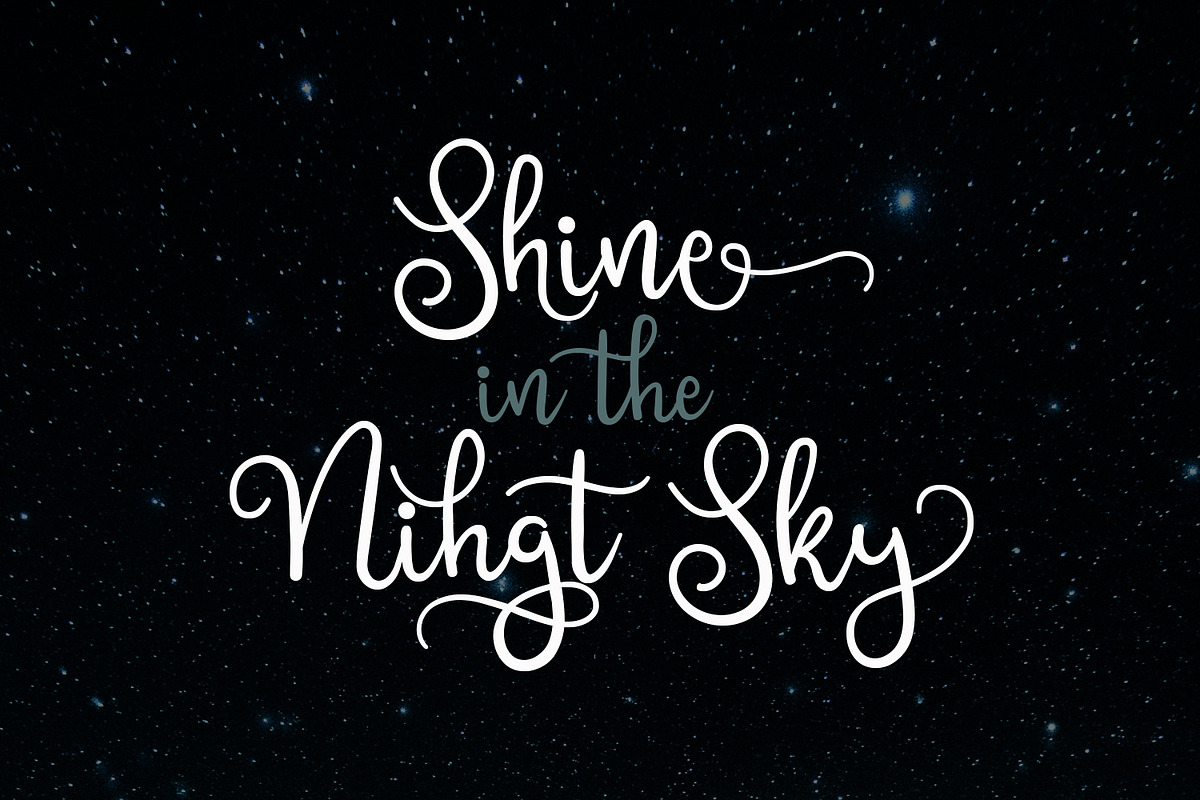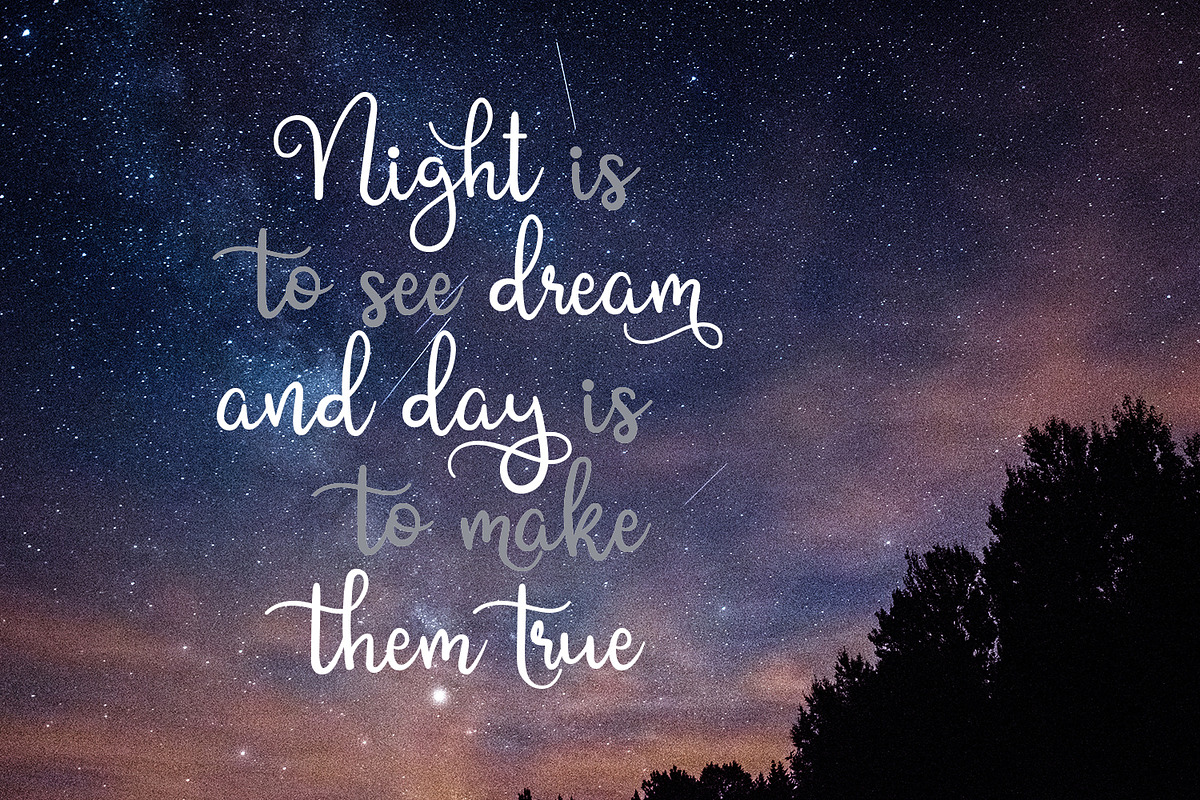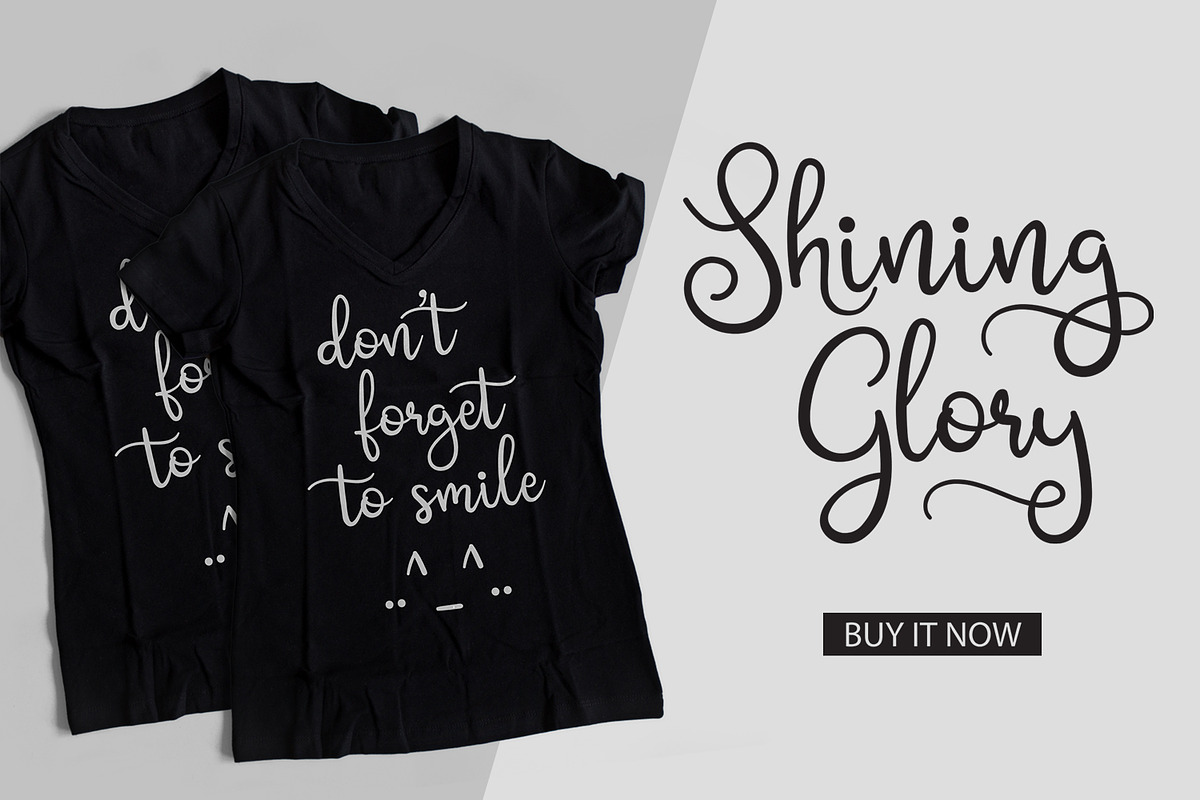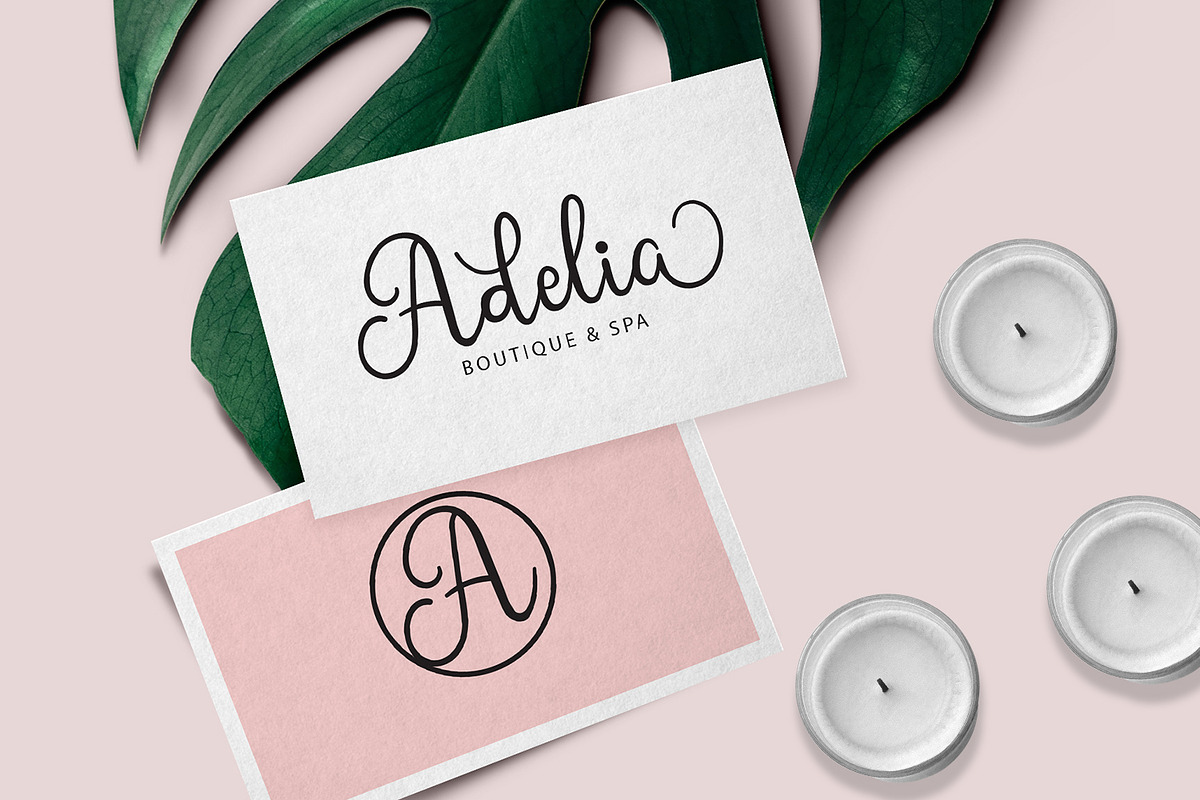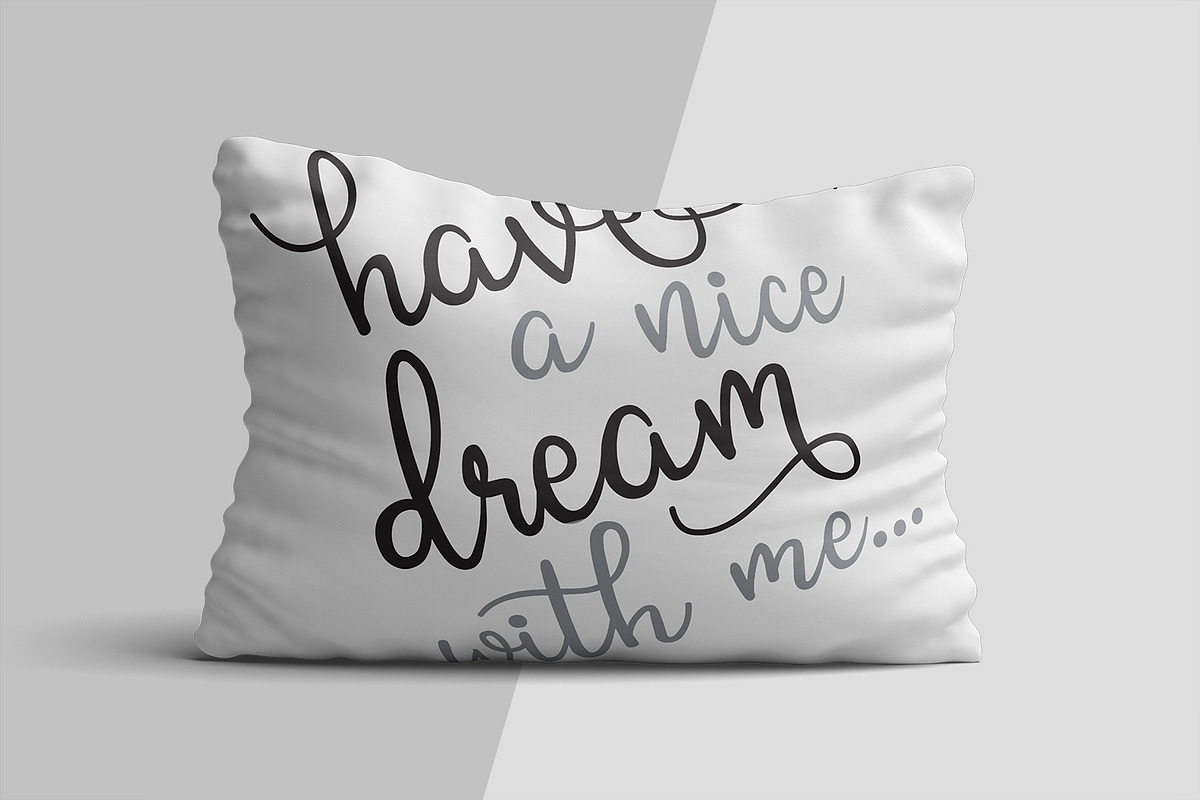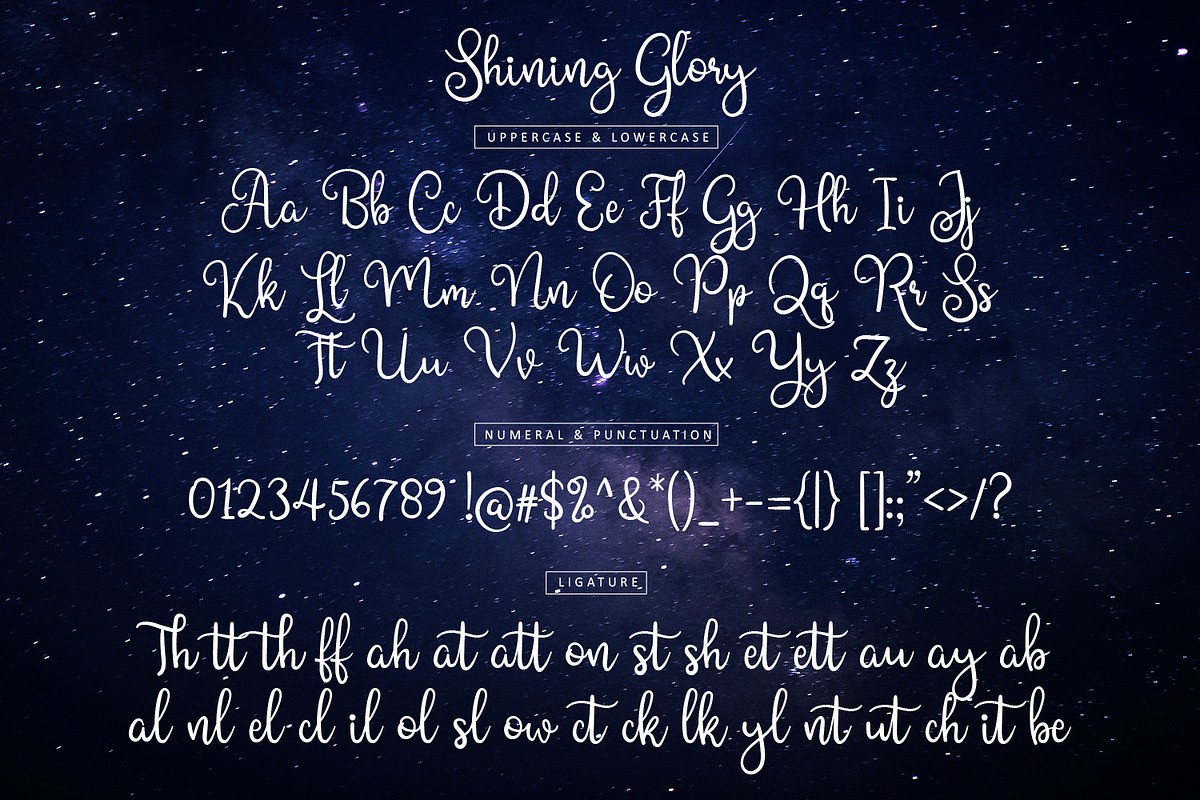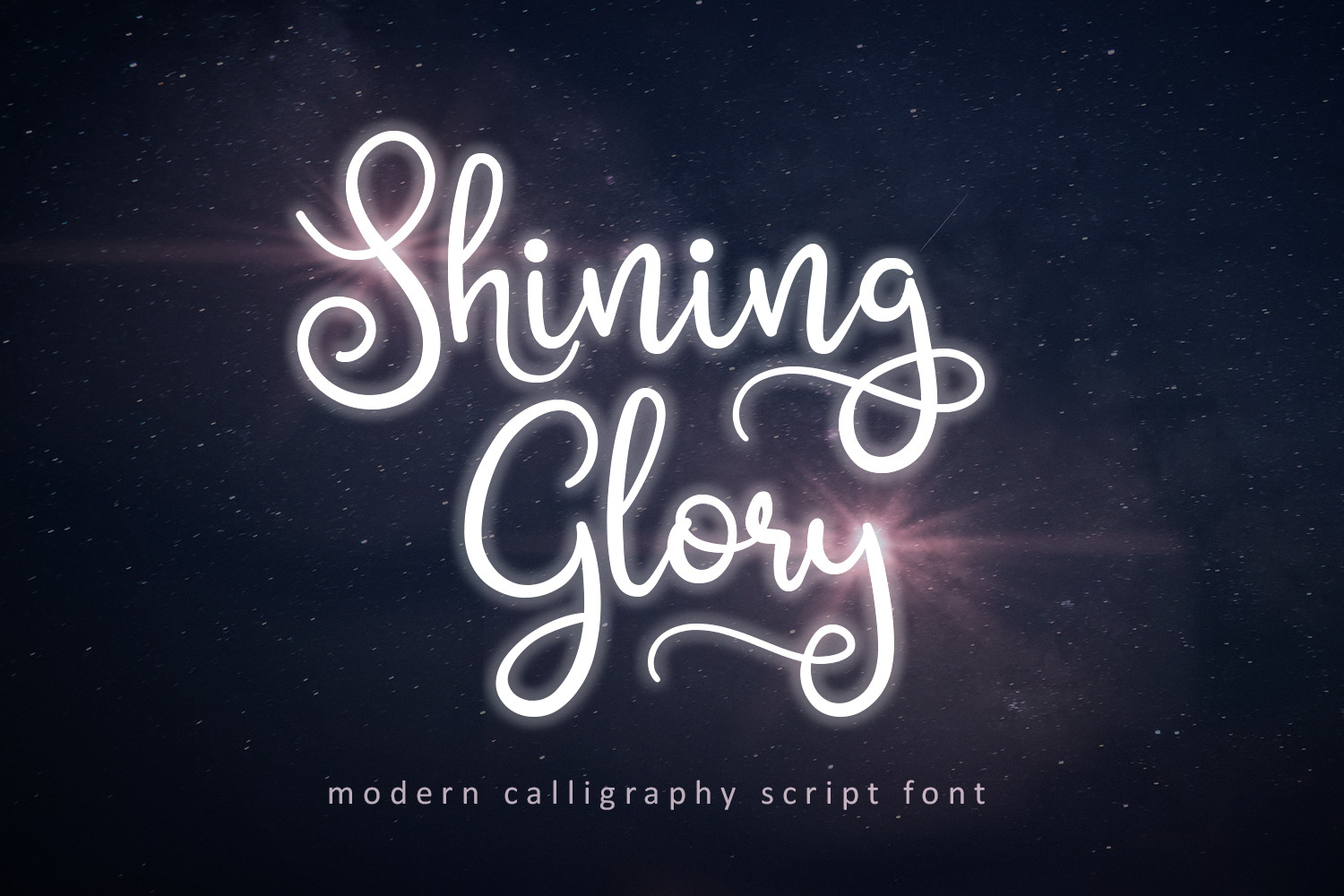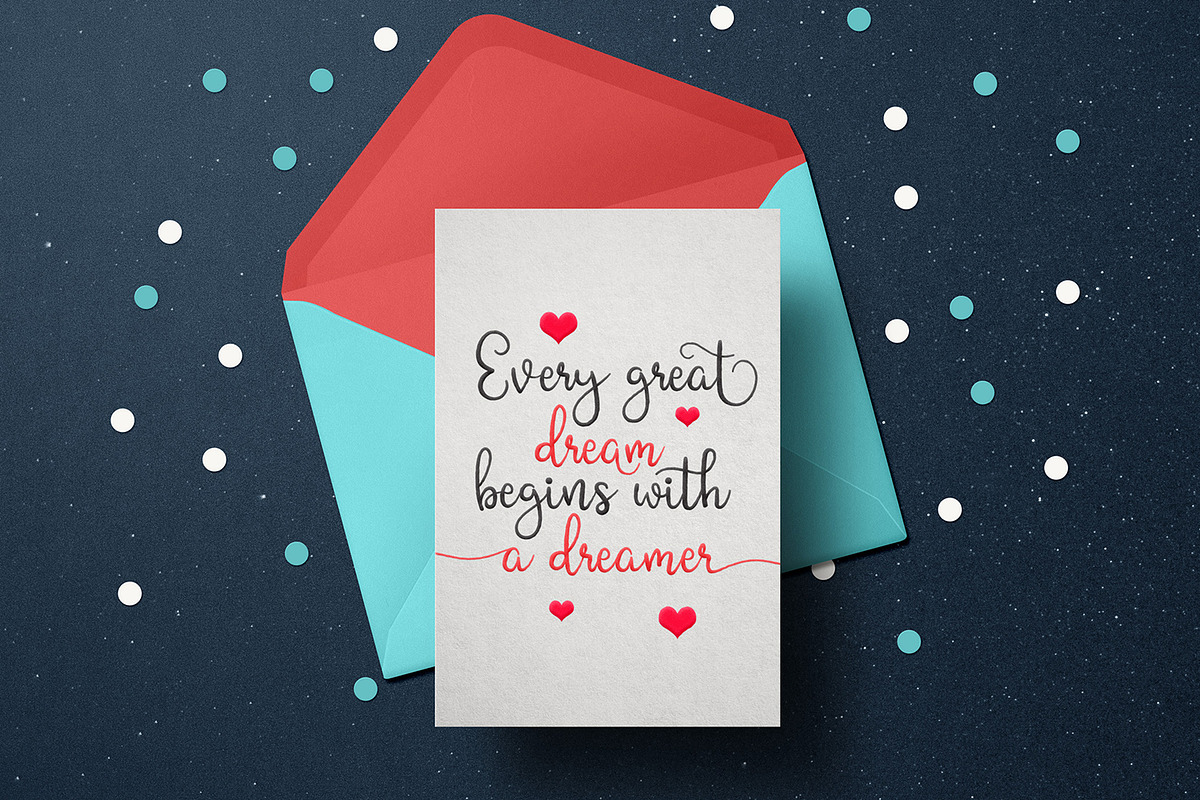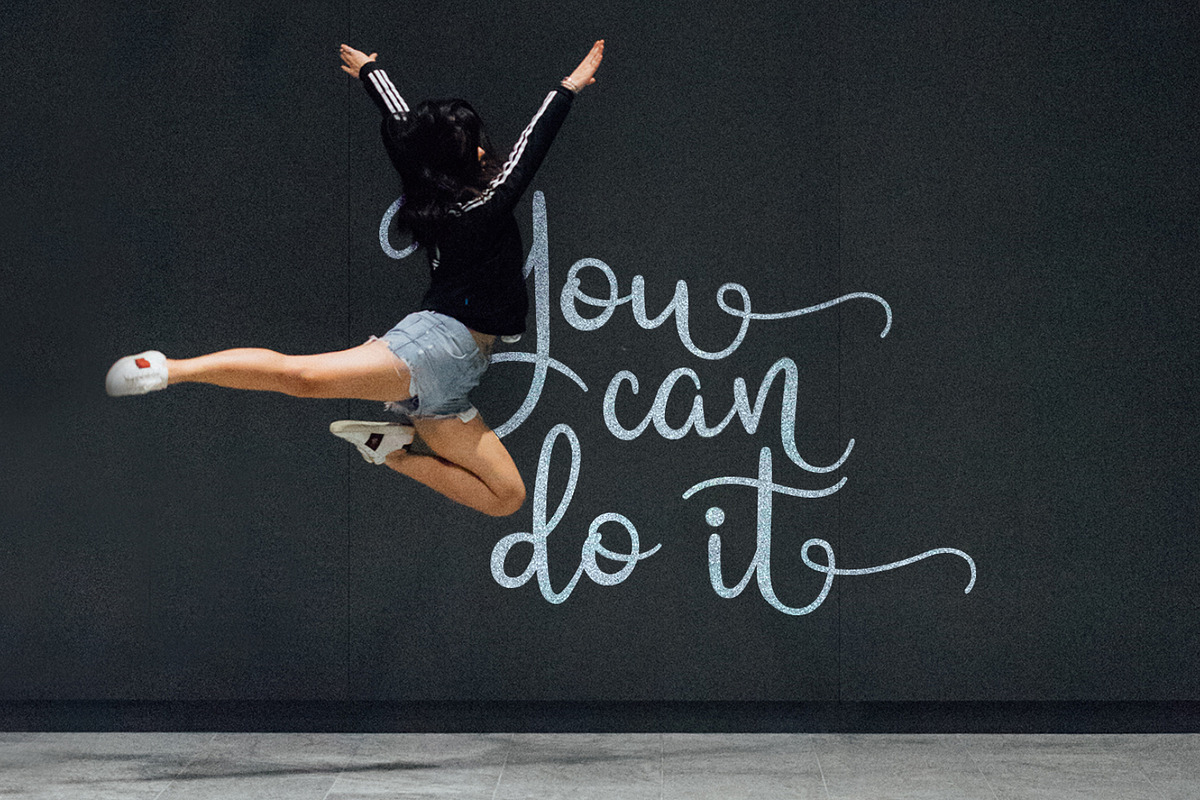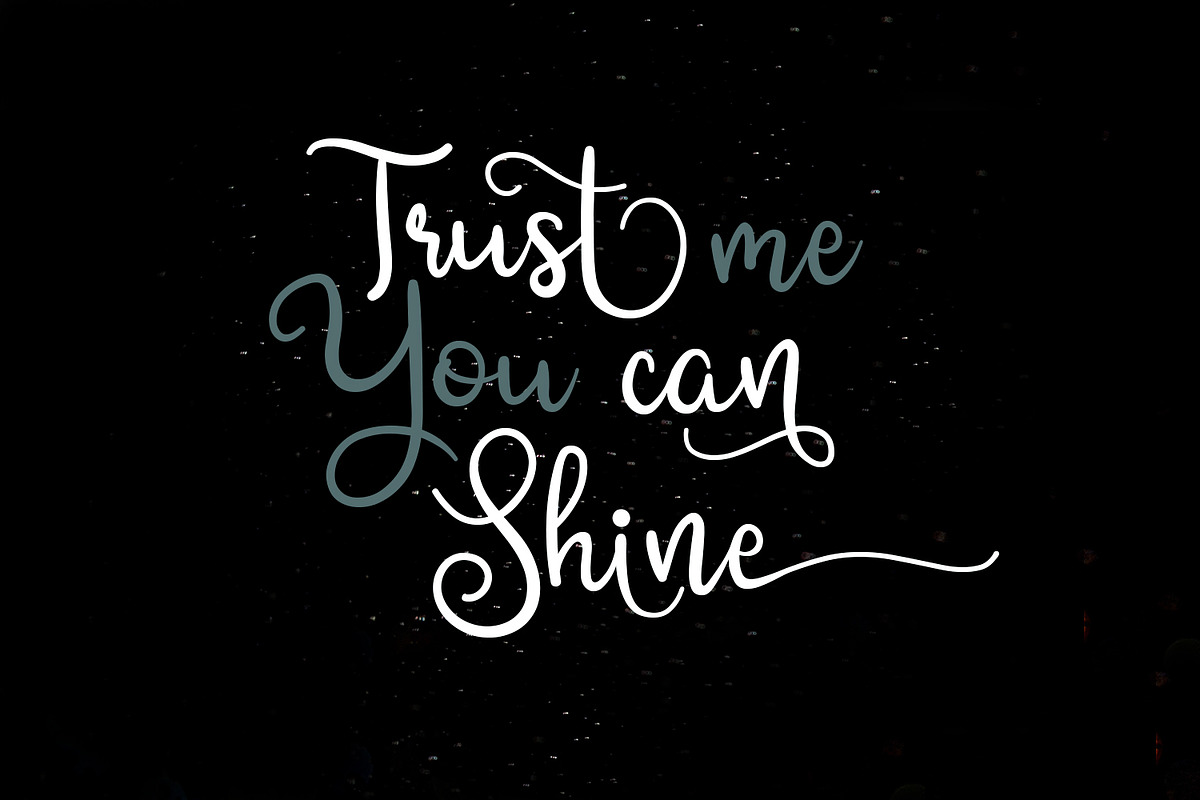
Shining Glory Script Font
Shining Glory is a new modern & fresh calligraphy script with natural script style. This font will make your design look elegant, natural and stylish. Shining Glory calligraphy script font is great for quote design, branding, wedding, photography, simply design with stylish text overlay to any background image.
- Stylistic alternate & ligature